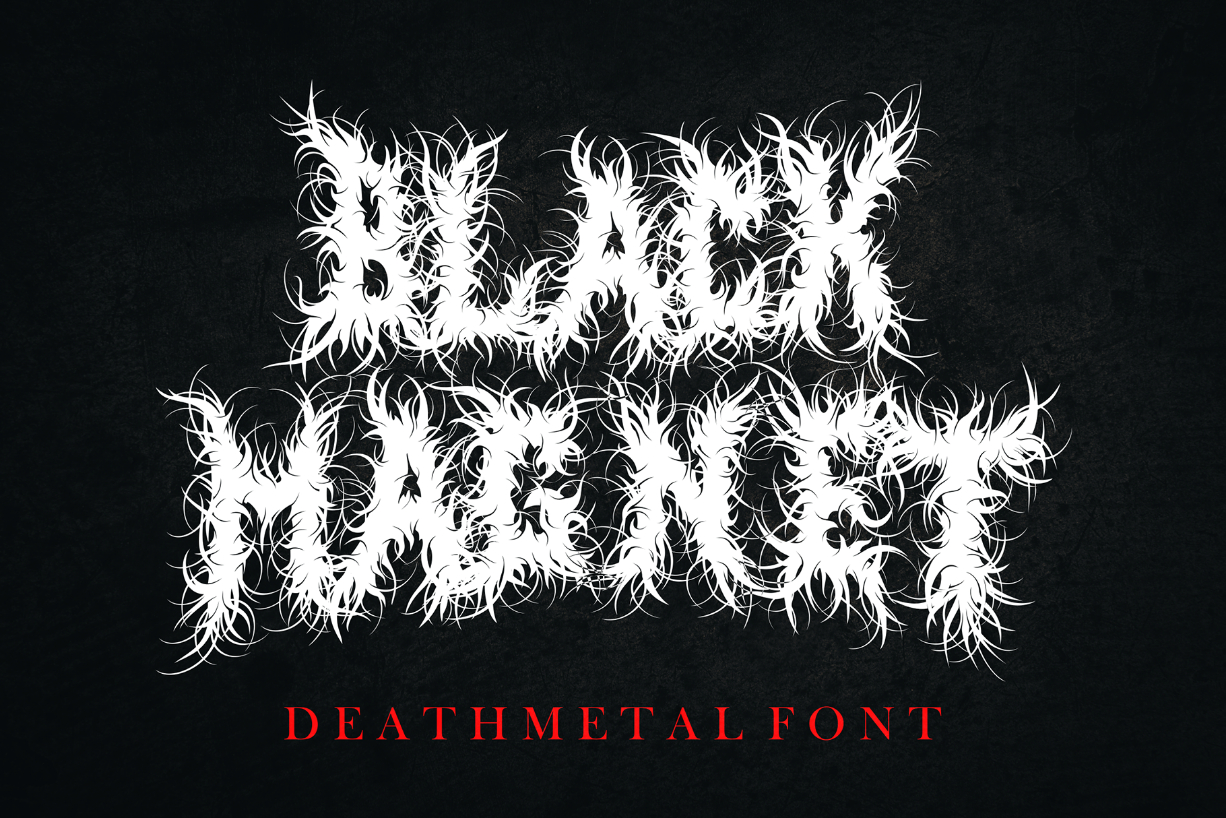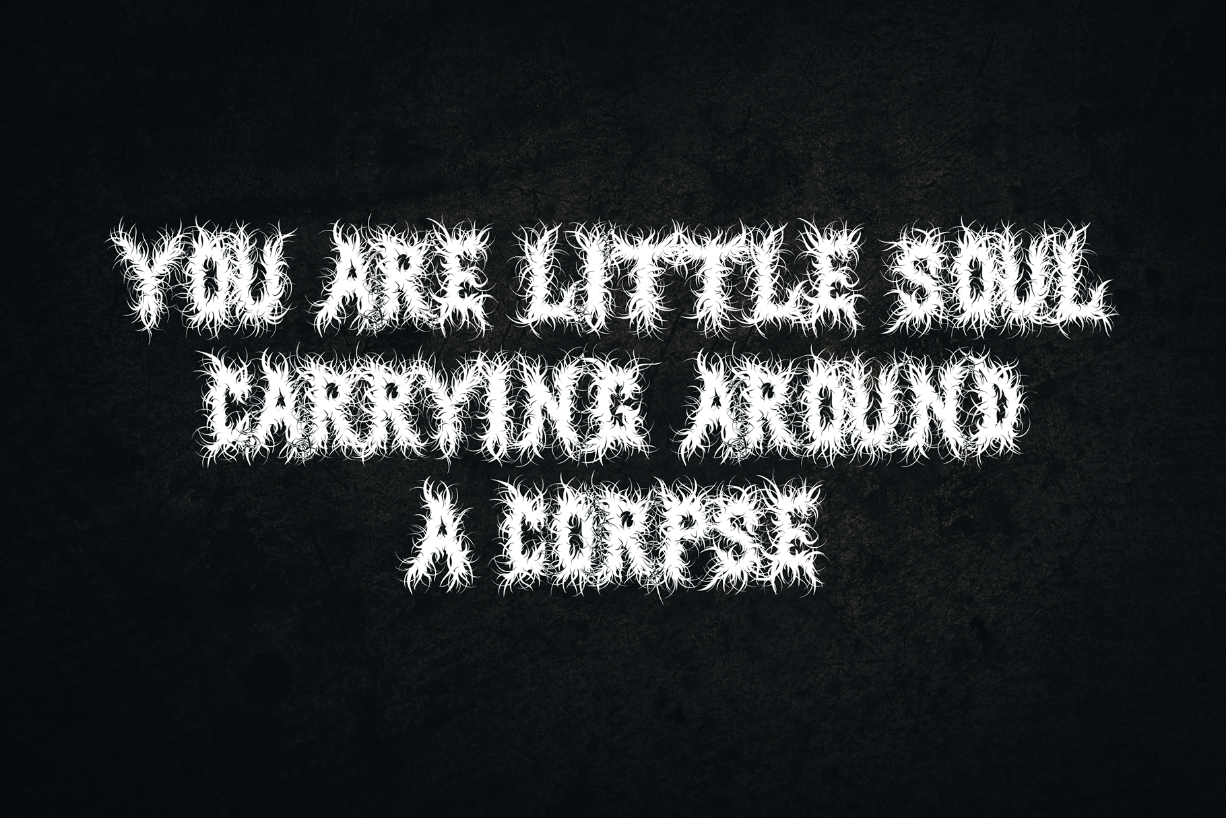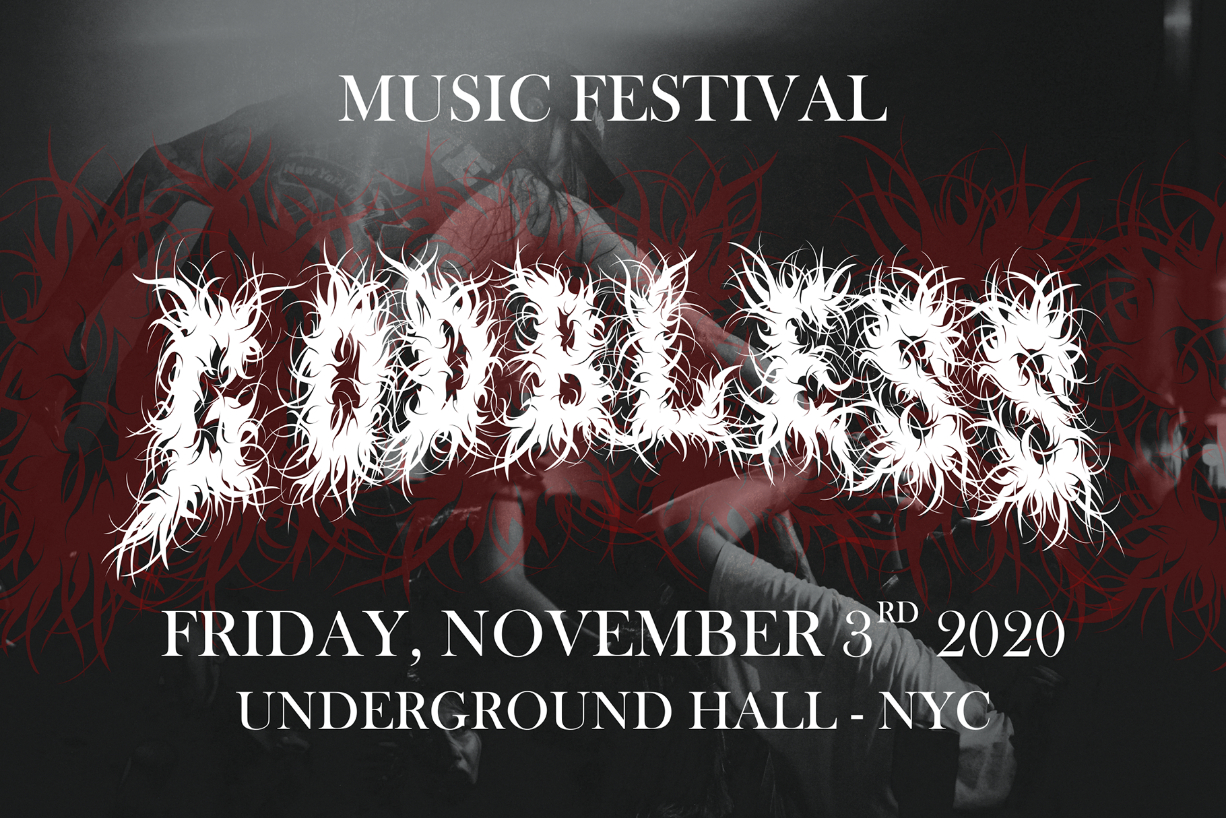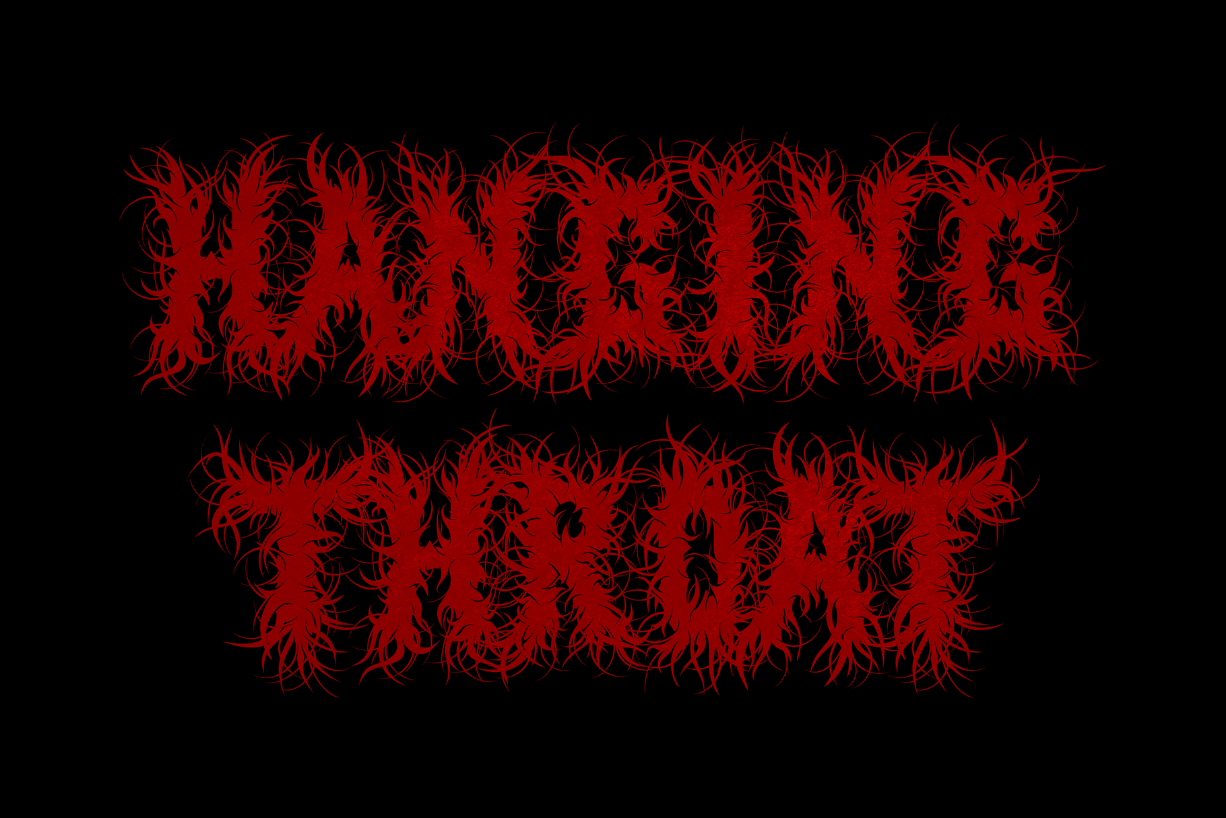
About Black Magnet Font
Black Magnet is great looking, rough, and metal-themed blackletter font. It will look great in death metal music projects, and much more!